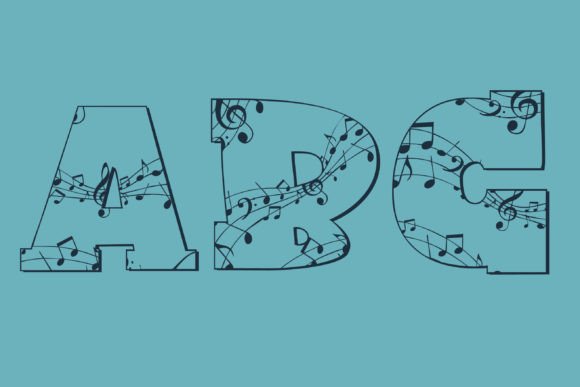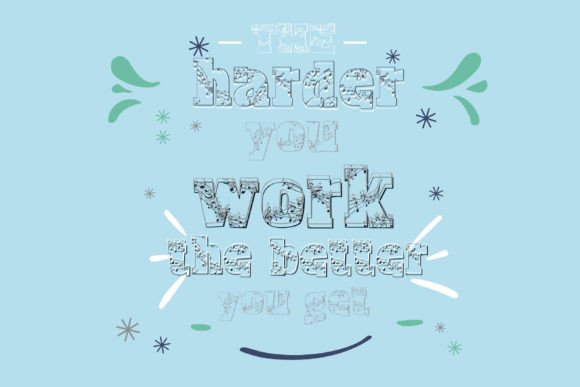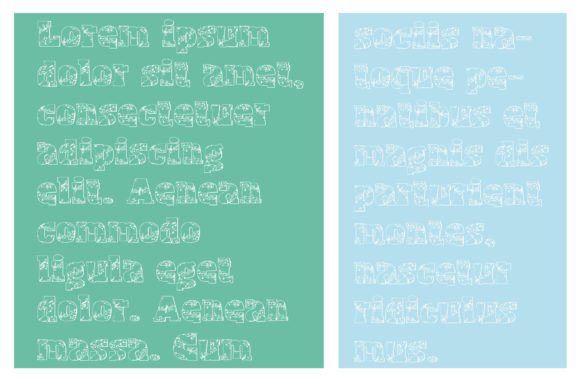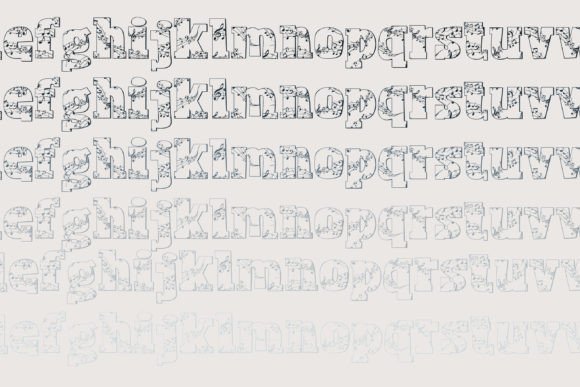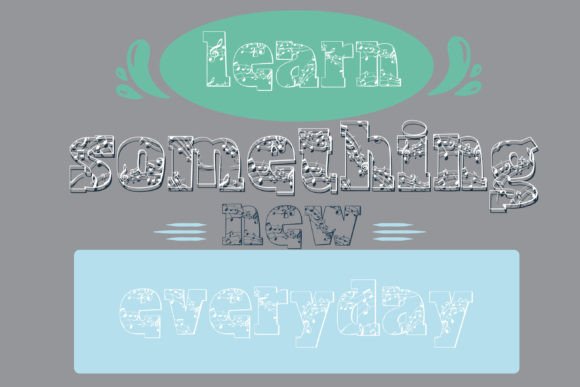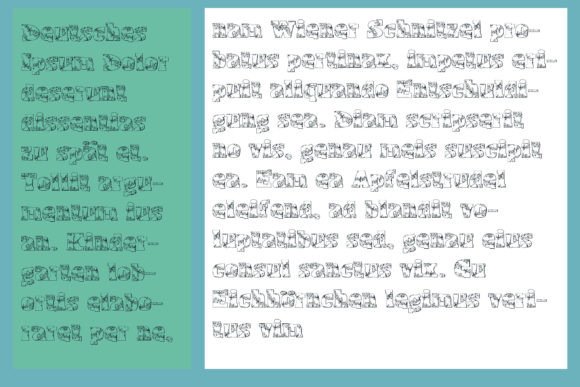
Introduction to Music Class Font
Do you remember that moment when you stumbled upon the perfect design element for your creative project, and everything just fell into place? For designers, finding the right font can be the key to unlocking a whole new level of creativity. And if you’re looking for something that will add a touch of whimsy and fun to your next design, you’re in luck! The Music Class Font is here to save the day.
So why settle for a plain old font when you can have a Music Class Font that’s sure to strike a chord with your audience? Whether you’re working on a design project or just looking for a fun way to express yourself, this font is sure to be a hit.
Key Features of Music Class Font
- High-quality, vector-based design resource for creative projects, including music education materials and posters.
- Transparent background option for seamless integration with any background image or color.
- Customizable font size and resolution (up to 300 DPI) for use in various creative projects, from posters to business cards.
- Unique musical notes and staff design elements, making it an ideal choice for music class and educational materials.
- High-resolution design, suitable for print and digital applications, ensuring a crisp and clear appearance.
- OpenType font features, including ligatures, swashes, and stylistic sets, for added creativity and flexibility.
Honest Review: Music Class Font
As a designer, I was excited to dive into the Music Class Font and see how it could elevate my creative projects. Overall, I was pleasantly surprised by the quality of this font.
What works well: ✨ I appreciated the fun and playful aesthetic of this font, which makes it perfect for music-themed projects or educational materials. The font is also incredibly versatile, making it suitable for a wide range of design applications. The high-quality design and transparent background make it easy to incorporate into any design project.
Overall impression: I would highly recommend the Music Class Font to designers working on music-themed or educational projects. With its high-quality design and transparent background, it’s a great resource to have in your design toolkit. Just keep in mind its limitations and consider using it for personal or non-commercial projects.
- Suitable for music-themed or educational projects
Music Class Font
To get the most out of the Music Class Font, use it with a transparent background to create a clean and modern look. You can also pair it with other high-quality design resources to create a unique and eye-catching design.
The Music Class Font is perfect for music-related projects, such as posters, flyers, and business cards. It’s also great for educational projects, like lesson plans and presentations. With its high-quality design and transparent background, the Music Class Font is a versatile resource that can be used in a variety of creative projects.